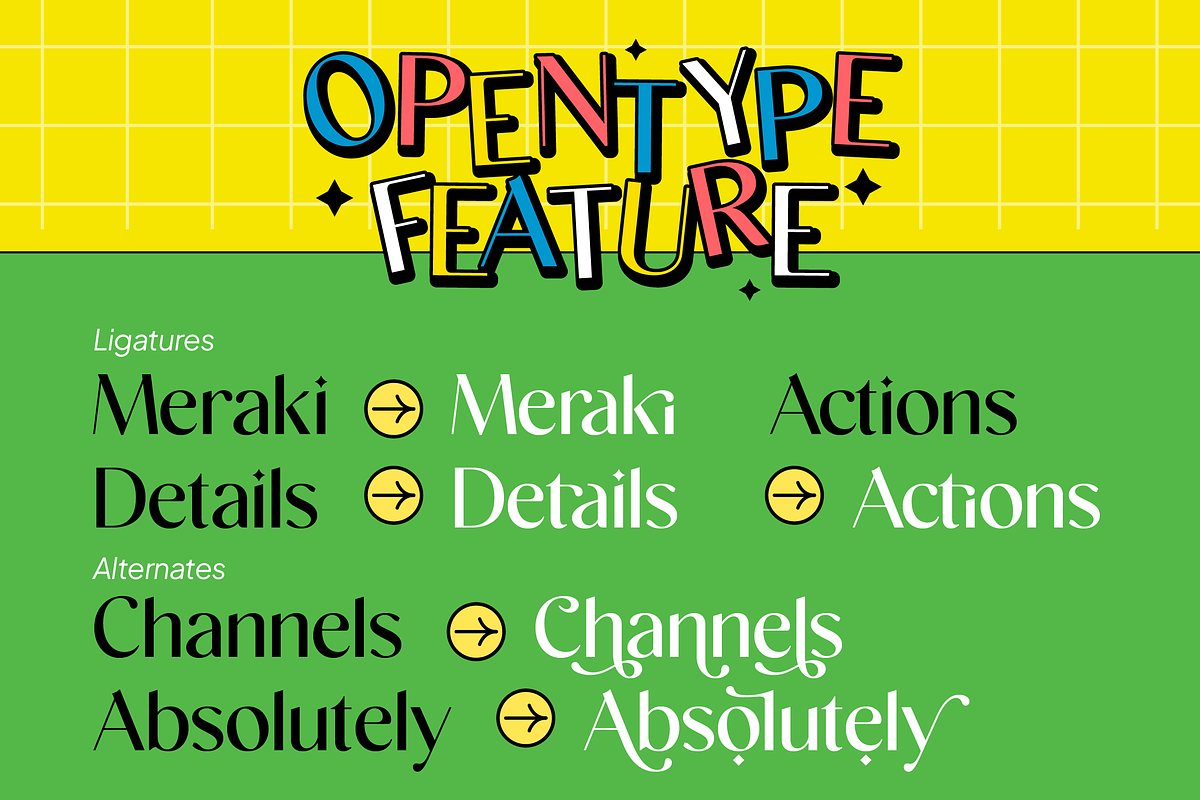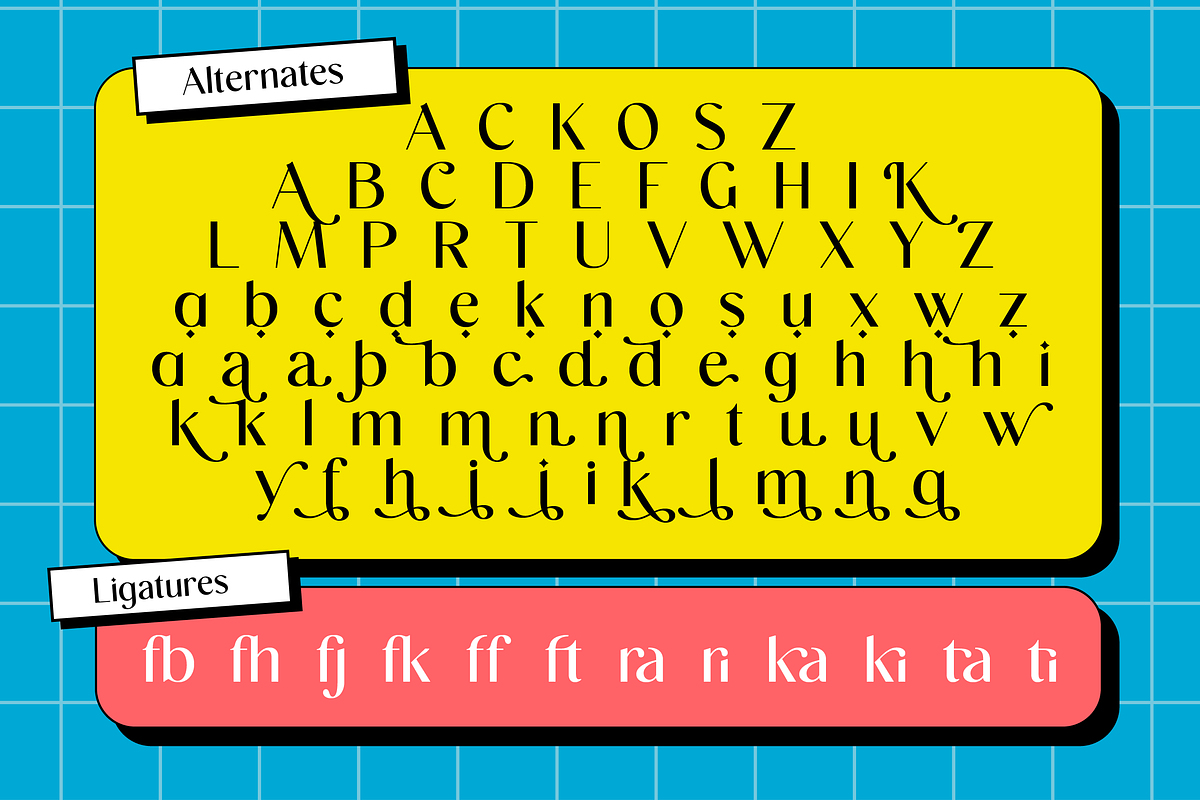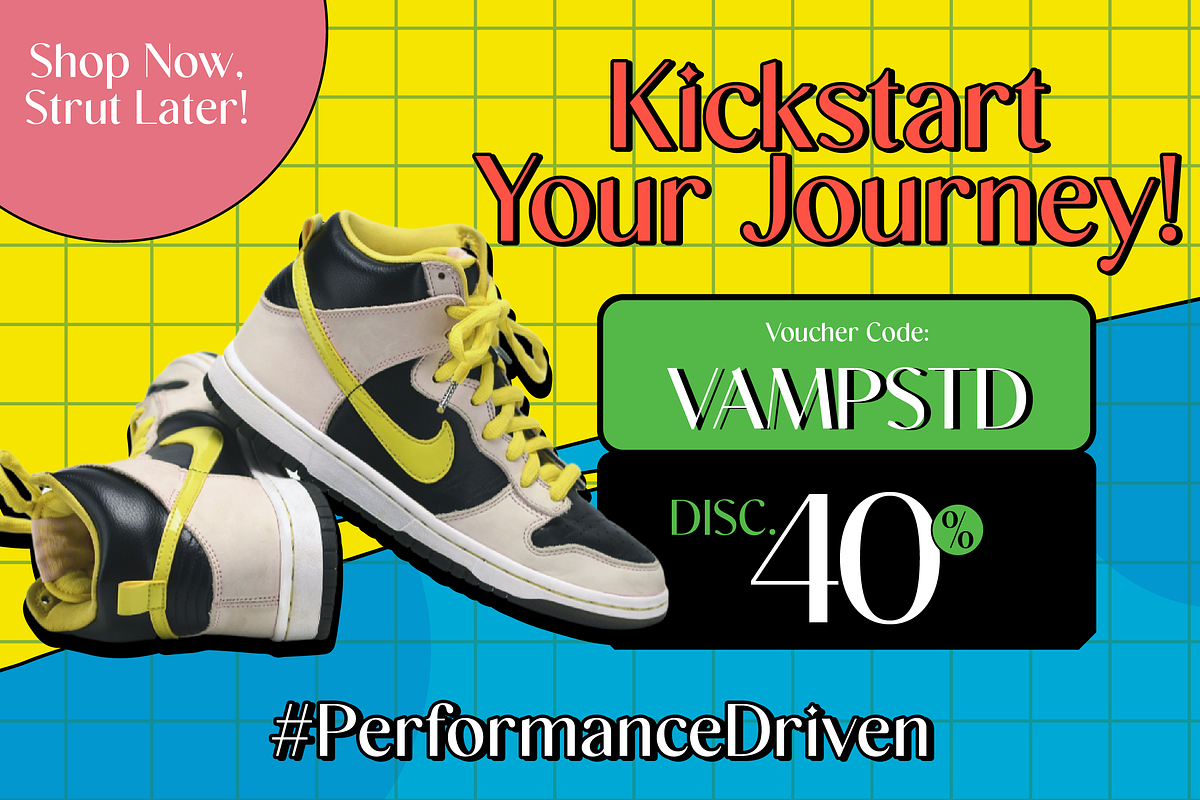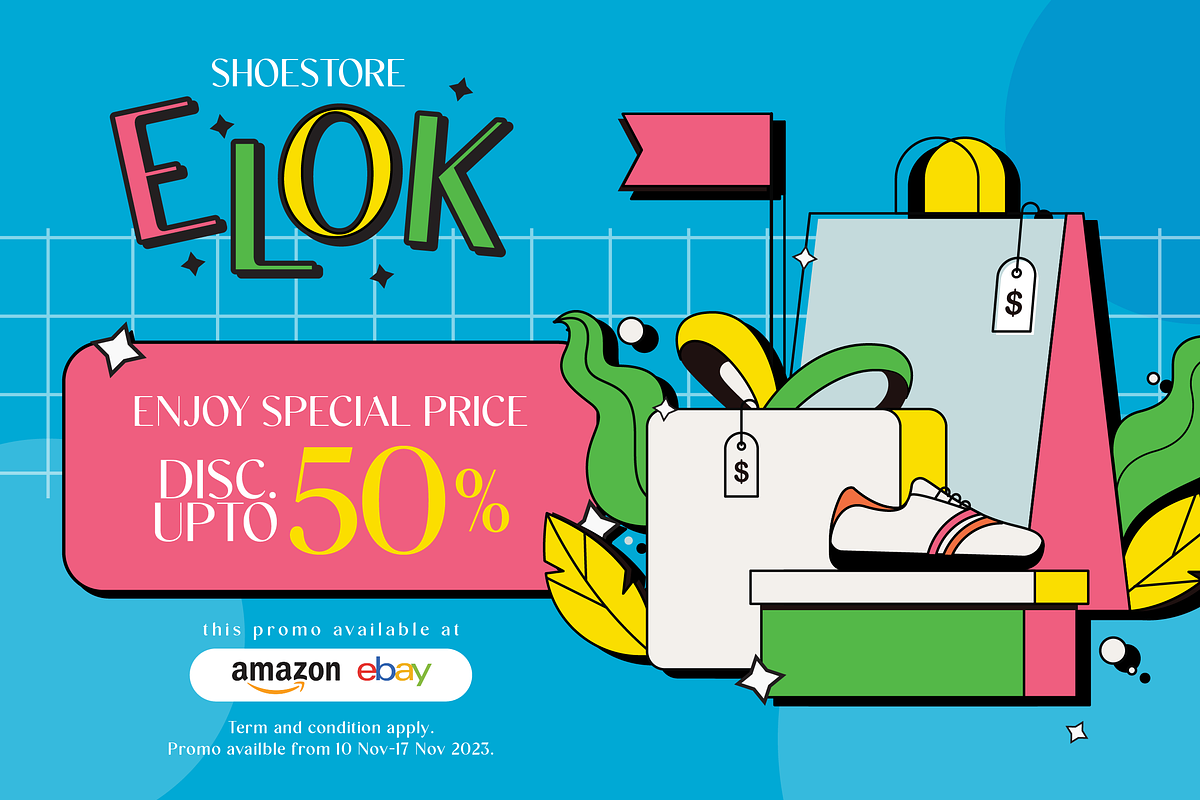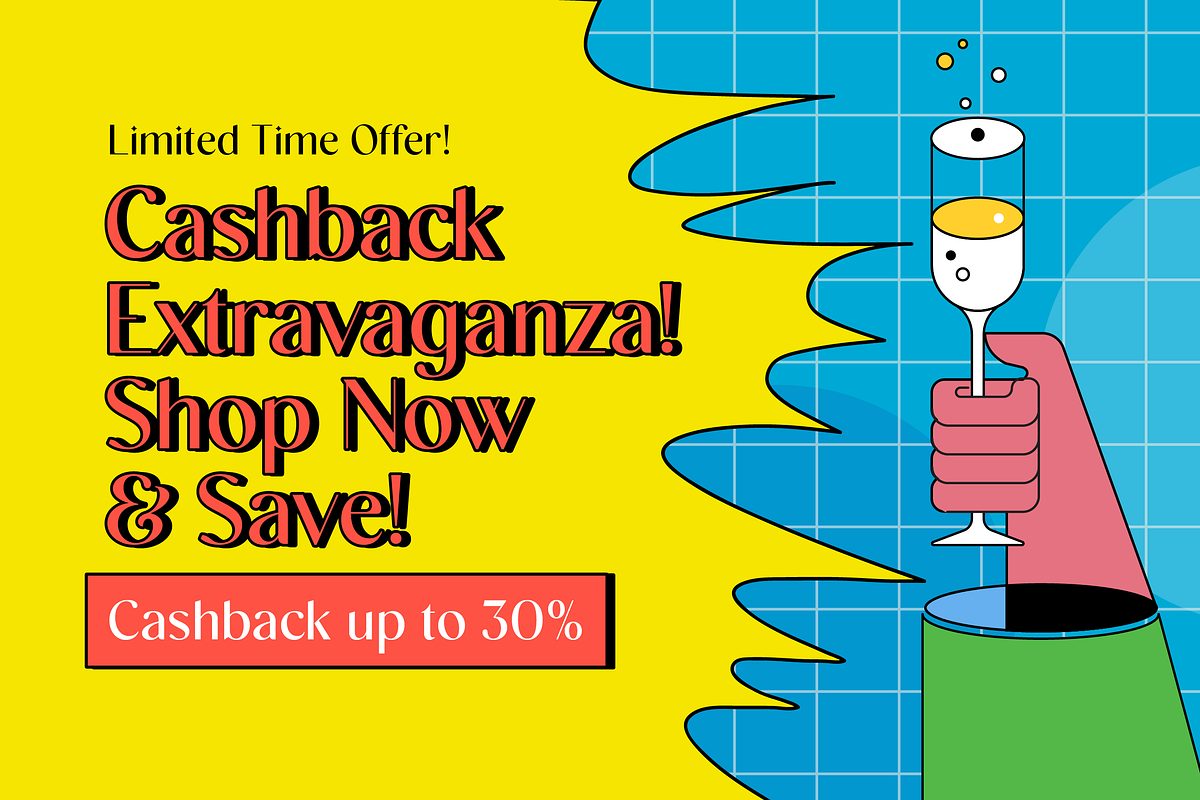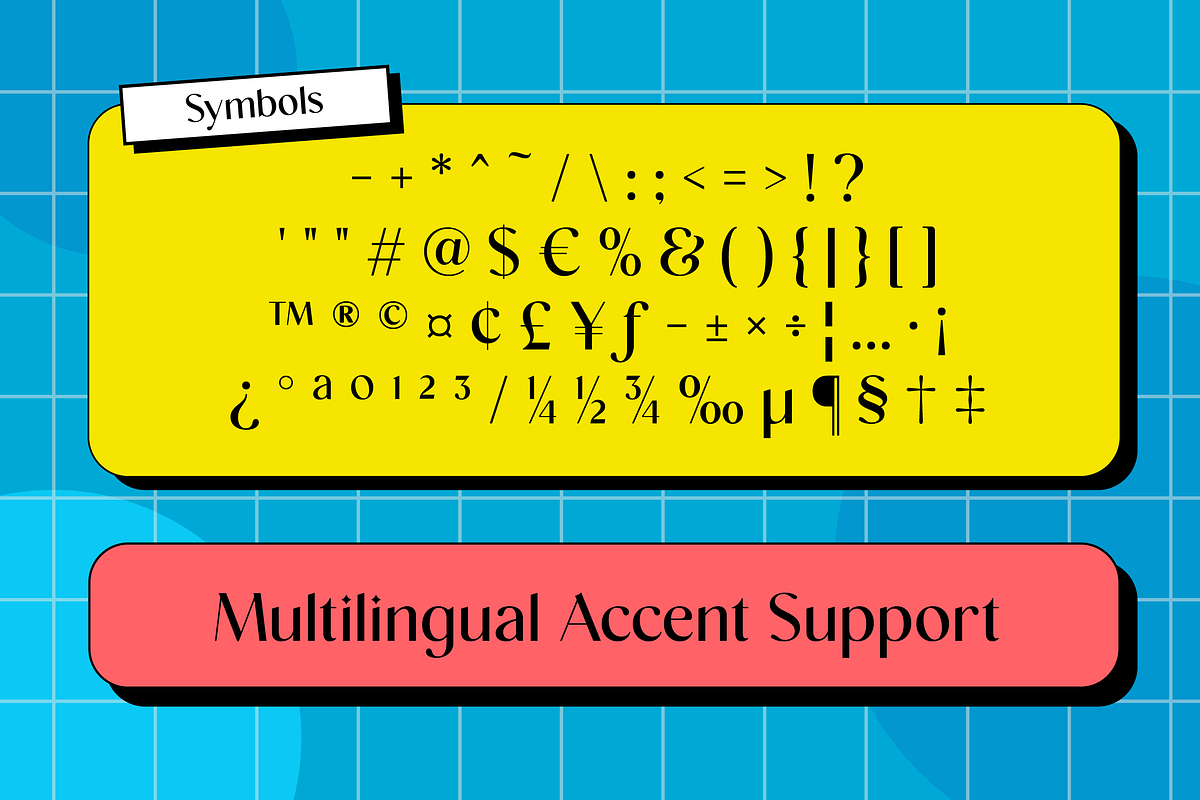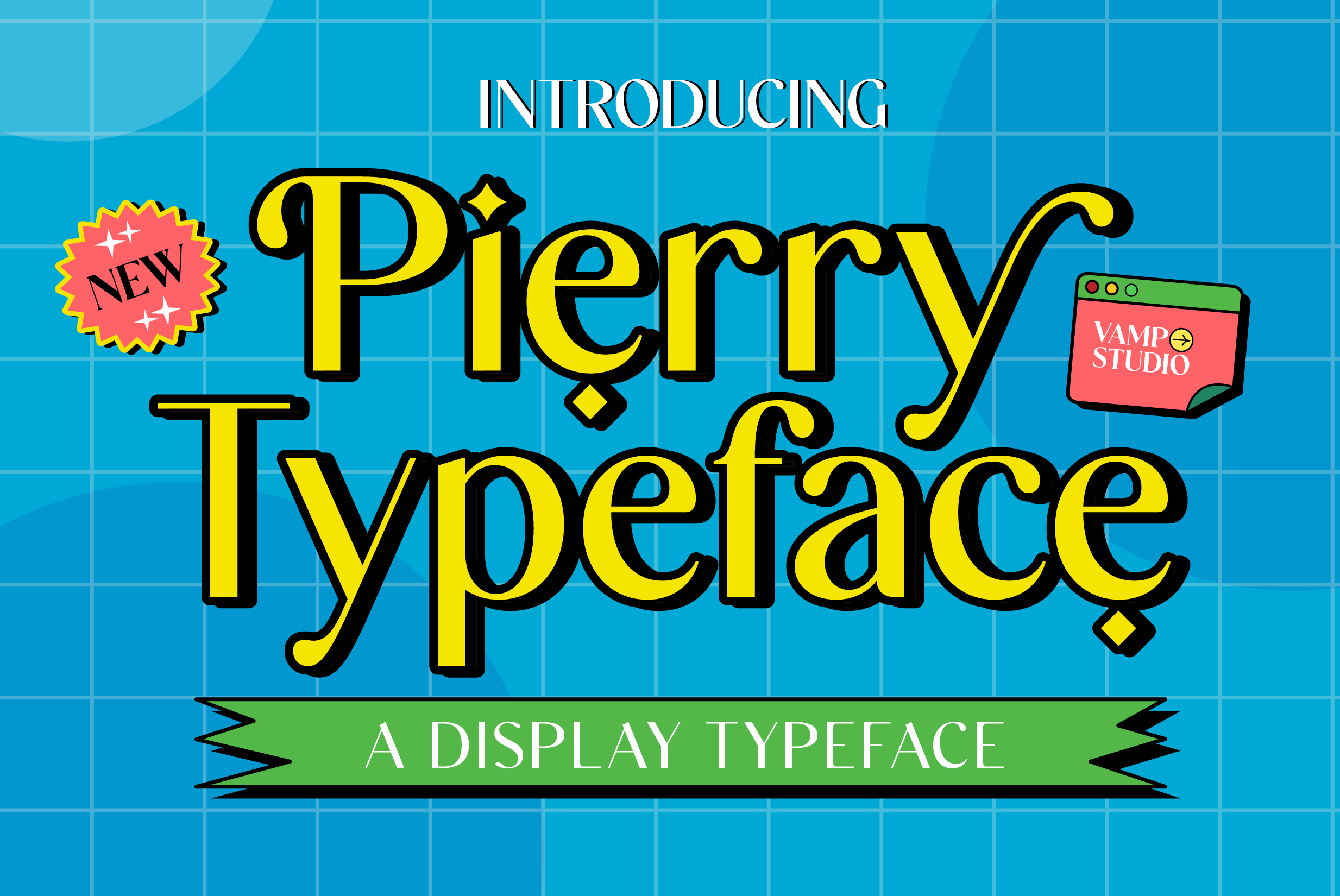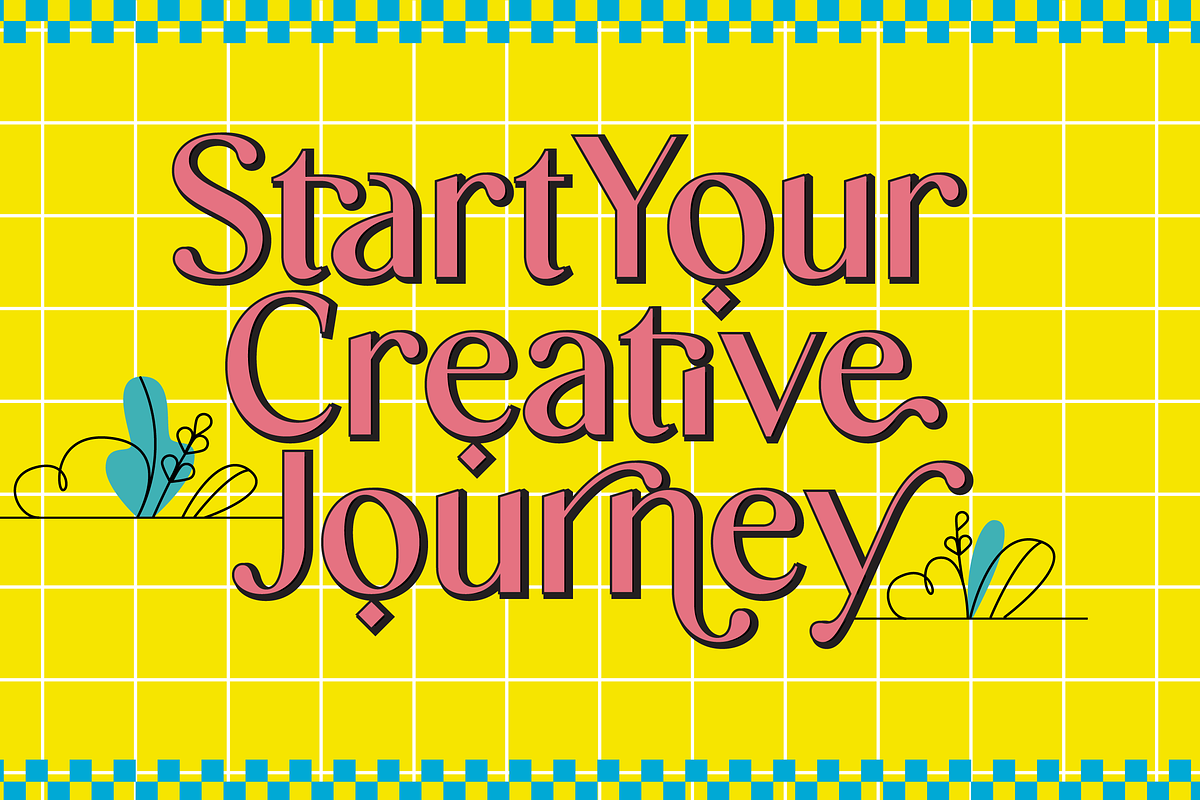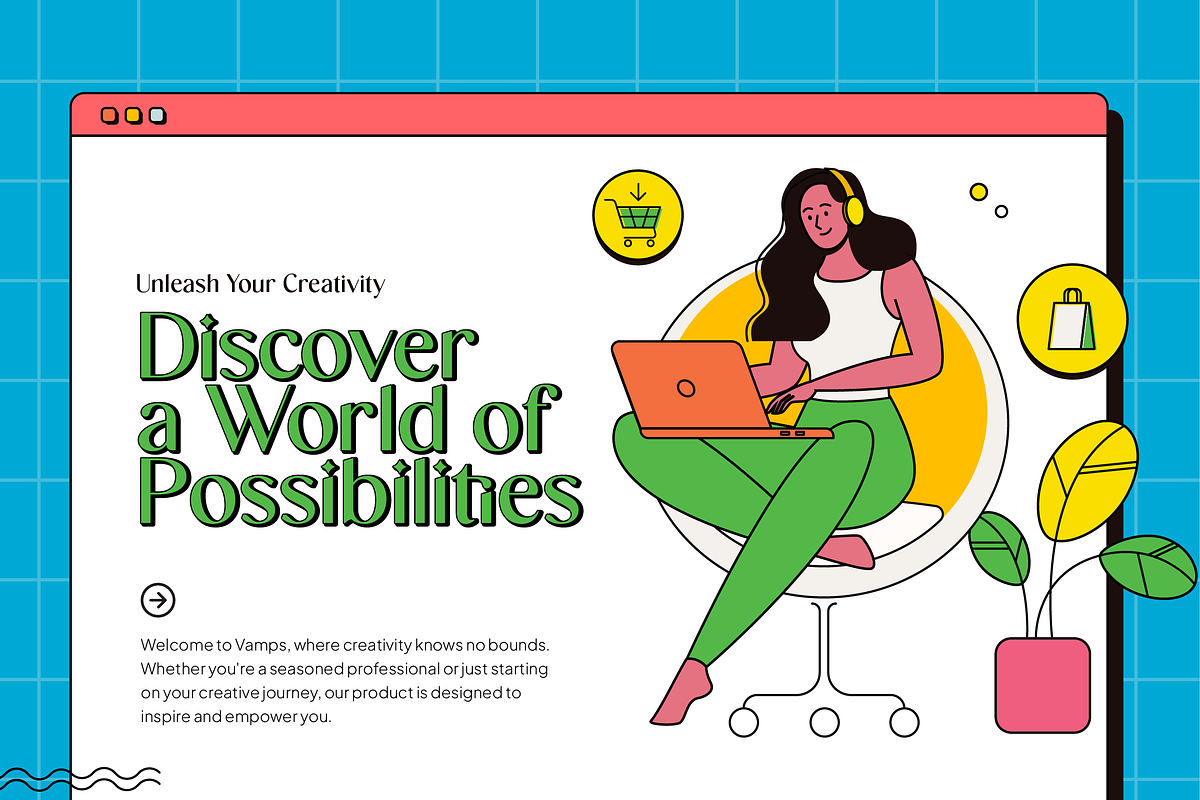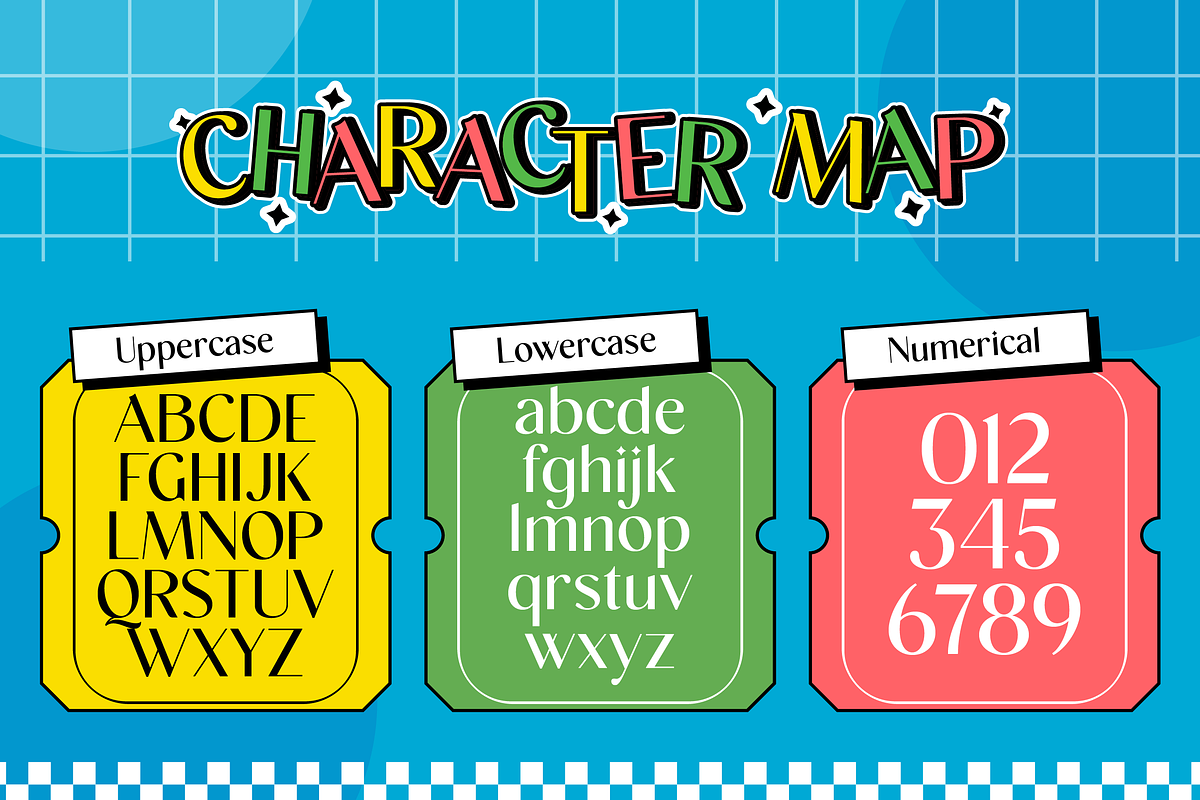
Pierry Adorable Charm Display Font
Introducing "Pierry" – Adorable Charm in Every Curve of this Playful Display Font!
Get ready to add a touch of cuteness to your designs with "Pierry," a delightful display font crafted to bring an adorable vibe to your creative projects.
- Irresistible Cuteness: Pierry is designed to charm with its playful and lovable appearance, perfect for projects that seek an endearing touch.
- Versatile Playfulness: Whether for posters, invitations, or social media graphics, Pierry adds a whimsical flair to any design.
- Cheerful Typography: Every character in Pierry is infused with a sense of joy and innocence, making it a go-to choice for all things cute.
Immerse yourself in the world of sweetness and playfulness as "Pierry" becomes your go-to font for projects that demand a touch of adorable charm.
Pierry is perfect for branding projects, logo, wedding designs, social media posts, advertisements, product packaging, product designs, label, photography, watermark, invitation, stationery and any projects that need handwriting taste.
- Fonts include multilingual support for; Afrikaans, Albanian, Czech, Danish, Dutch, English, Estonian, -Finnish, French, German, Hungarian, Italian, Latvian, Lithuanian, Norwegian, Polish, Portuguese, Slovak, Slovenian, Spanish, Swedish.